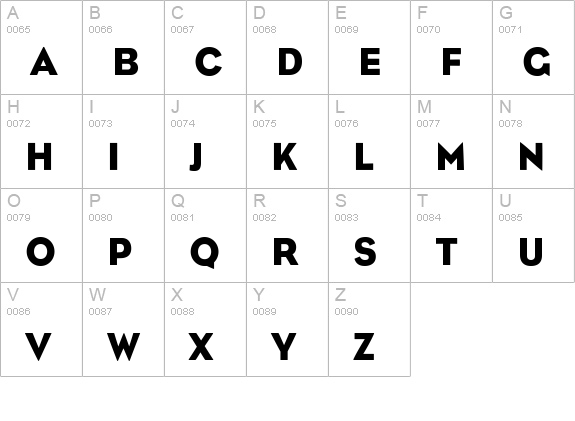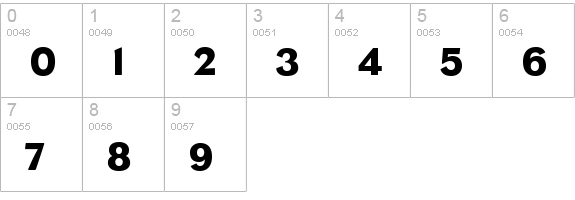
BureauEagleBook font is a versatile and elegant typeface that exudes sophistication and modernity. With its clean lines and balanced proportions, this font is perfect for a wide range of design projects, from branding to editorial design. The sleek and contemporary look of BureauEagleBook font will add a touch of professionalism to any project. Best of all, BureauEagleBook font is available for free download at FontsMarket.com. This means that you can easily access this high-quality font without breaking the bank. Whether you're a seasoned designer or just starting out, BureauEagleBook font is a valuable addition to your font library. Download it today and elevate your designs with this stylish and versatile typeface.